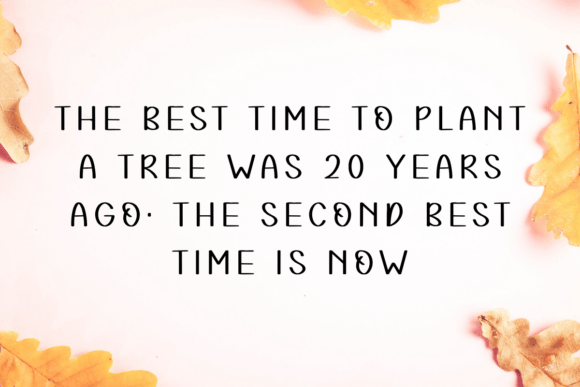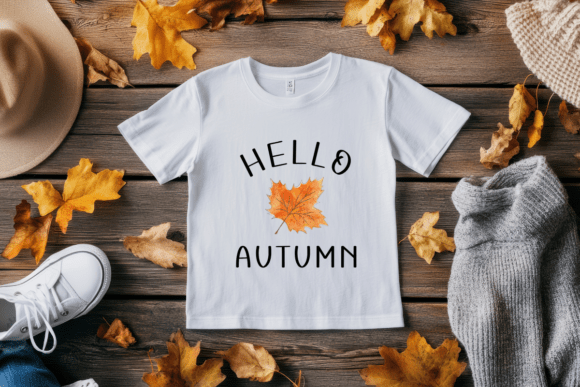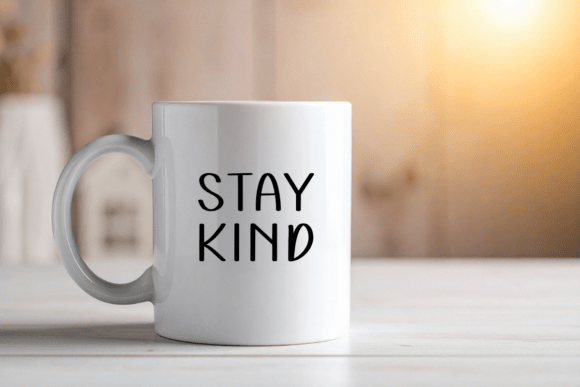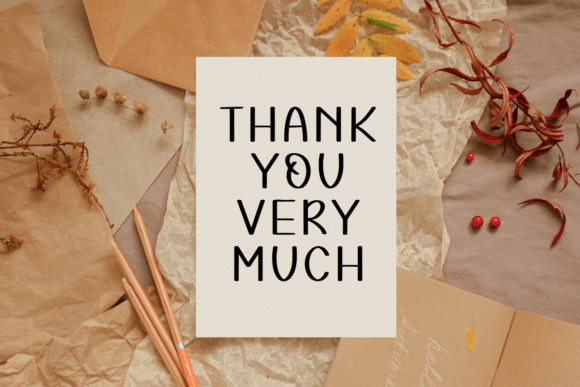
Introducing Autumn Season Font: Add a Touch of Cute Aesthetic to Your Designs
As the seasons change and autumn arrives, it’s the perfect time to infuse your designs with a warm and cozy vibe. If you’re a designer, crafter, or DIY enthusiast looking for a font that embodies the spirit of the season, look no further than Autumn Season Font. This charming handwriting font is designed to bring a playful and cute aesthetic to your projects, making it perfect for a wide range of applications.
What Makes Autumn Season Font So Special?
Autumn Season Font is more than just a font – it’s a design element that can elevate your creations and make them stand out. With its cute and natural vibes, this font is ideal for anyone looking to add a touch of whimsy to their designs. Whether you’re working on a branding project, crafting a handmade card, or creating a DIY home decor item, Autumn Season Font is the perfect choice.
One of the best things about Autumn Season Font is its versatility. This font can be used for a wide range of projects, including:
- Cricut projects: Add a personal touch to your Cricut designs with this charming font.
- Planners and journals: Make your planners and journals more visually appealing with Autumn Season Font.
- Mugs and water bottles: Add a cute and playful touch to your drinkware designs.
- Stickers and labels: Use Autumn Season Font to create adorable stickers and labels for your crafts.
- Invitations and greeting cards: Make your invitations and greeting cards more special with this beautiful font.
- KDP and scrapbooking: Add a personal touch to your KDP projects and scrapbooking pages.
- Crafting and tote bags: Use Autumn Season Font to create unique and eye-catching designs for your tote bags and crafts.
- Quotes and keychains: Add a touch of inspiration to your quotes and keychains with this charming font.
- Notes and journals: Make your notes and journals more visually appealing with Autumn Season Font.
Why Choose Autumn Season Font?
So why choose Autumn Season Font over other fonts? Here are just a few reasons why this font stands out:
- Playful and cute aesthetic: Autumn Season Font has a unique and playful aesthetic that’s sure to make your designs stand out.
- Easy to read: Despite its playful nature, Autumn Season Font is easy to read and understand, making it perfect for a wide range of projects.
- Versatile: This font can be used for a wide range of projects, from crafting and DIY to branding and marketing.
- High-quality design: Autumn Season Font is designed with high-quality and attention to detail, ensuring that your designs look professional and polished.
- Experiment with different colors: Autumn Season Font looks great in a wide range of colors, so don’t be afraid to experiment and find the perfect hue for your design.
- Pair with other design elements: Autumn Season Font pairs well with other design elements, such as illustrations and graphics. Try combining it with other elements to create a unique and eye-catching design.
- Use it consistently: To create a cohesive look, use Autumn Season Font consistently throughout your design.